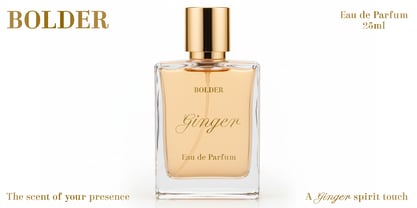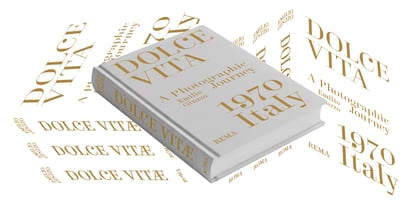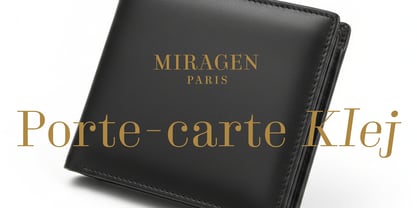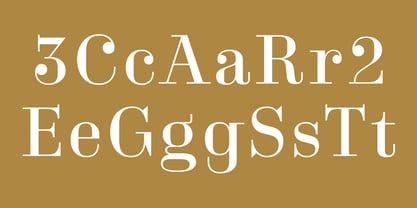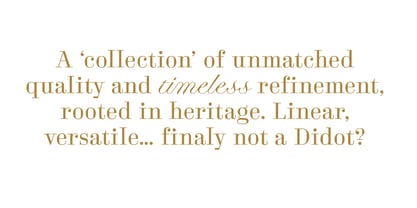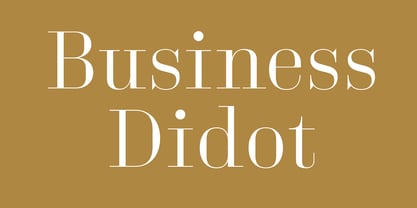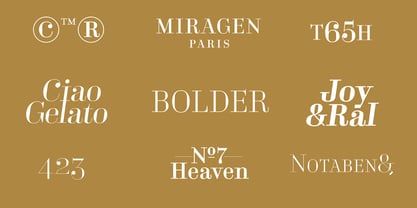
Business Didone
von Pizzatypefaces
Die Schriftfamilie Business Didone wurde von Adrien Midzic entworfen und von Pizzatypefaces veröffentlicht. Business Didone enthält 31 Stile und Familienpaketoptionen. Mehr über diese Familie
Business Serif is a warm and inviting companion to Business Blooming and Business Didot. Designed entirely through curves and subtle sharpening, it develops a distinctive rhythm that feels both welcoming and refined. Its forms are generous yet controlled, allowing the eye to move smoothly across the line. The curves create softness and accessibility, while carefully honed terminals introduce clarity and structure. This balance gives the typeface its unique tone, comfortable yet precise. Business Serif brings a human presence to the Business family. It performs beautifully in editorial environments, brand communication, and long reading contexts where personality and legibility must coexist. Together with Business Blooming and Business Didot, it completes a typographic dialogue where fluidity, contrast, and warmth interact to shape a contemporary and harmonious voice.
Designer: Adrien Midzic
Foundry: Pizzatypefaces
Business Didone